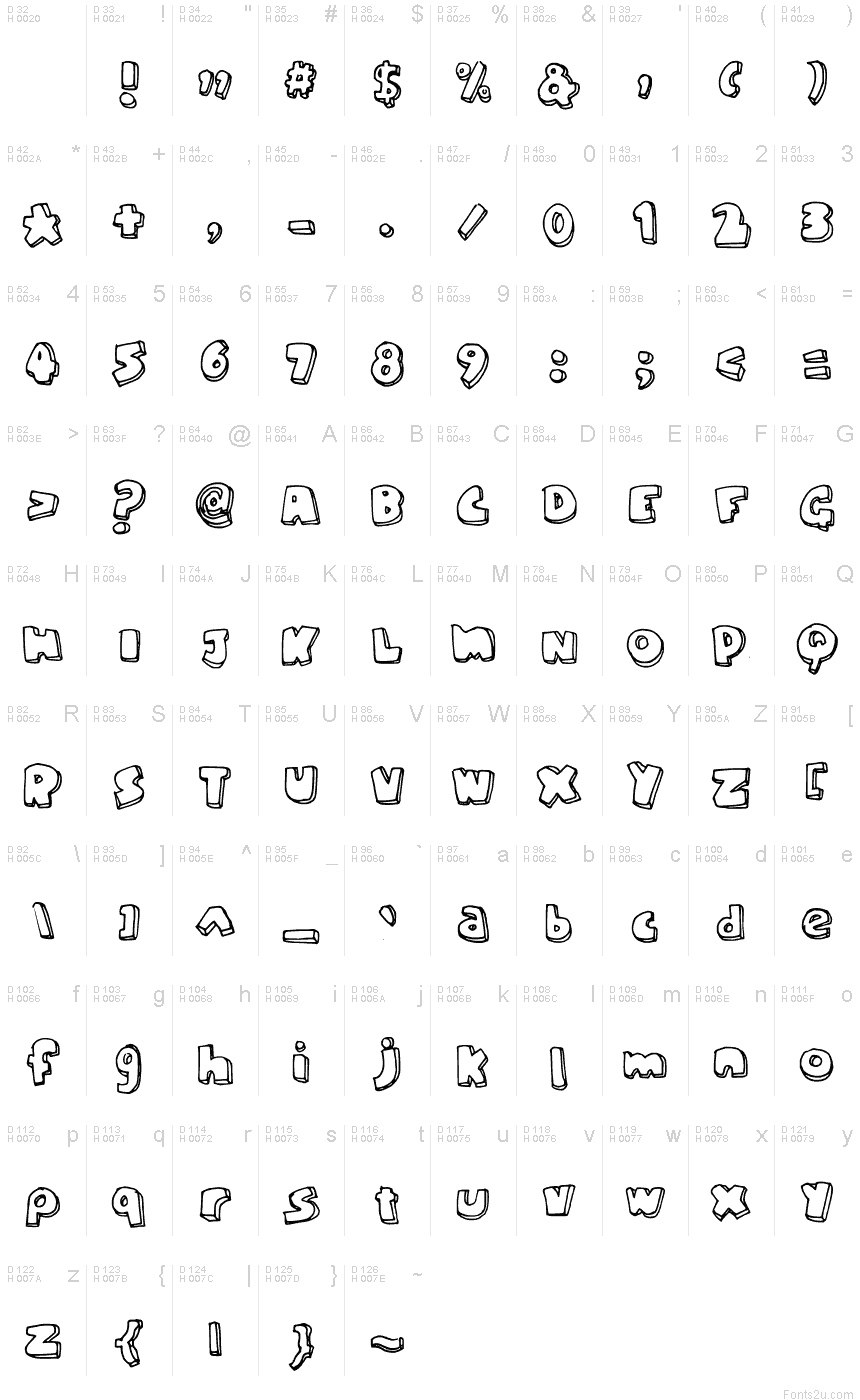
Chunky, created by Tim Sutcliffe, is a free outlined cartoon display font with broad, hand-drawn letters. Uneven curves, changing stroke widths, and loosely squared forms give the lettering the look of marker sketches turned into inflated shapes.
A children's book cover is a convincing home for its cheerful, homemade drawing style. The same rounded outlines suit toy packaging, classroom posters, and comic-themed event graphics, especially when the lettering can mingle with simple illustrations. For playful product branding, the irregular forms can function almost like a custom-drawn mascot or label.